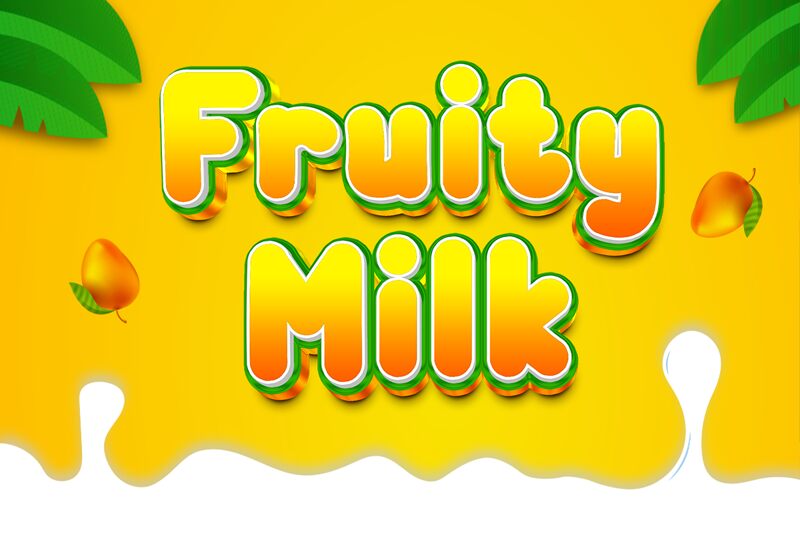
Fruity Milk font by Kong Font is a playful and bold display typeface that embodies the essence of whimsy. Its cartoonish style, characterized by rounded edges and lively shapes, creates an inviting atmosphere perfect for drawing attention. The opacity and weight give it a robust presence, making it ideal for a variety of design contexts.
Fruity Milk shines in settings like children’s books, playful branding, or vibrant event promotions, where its cheerful aesthetic can bring a touch of joy. Additionally, the font's unique character makes it an excellent choice for packaging design or social media graphics aimed at engaging a youthful audience. With its fun vibe and versatility, Fruity Milk adds a splash of creativity to any project.